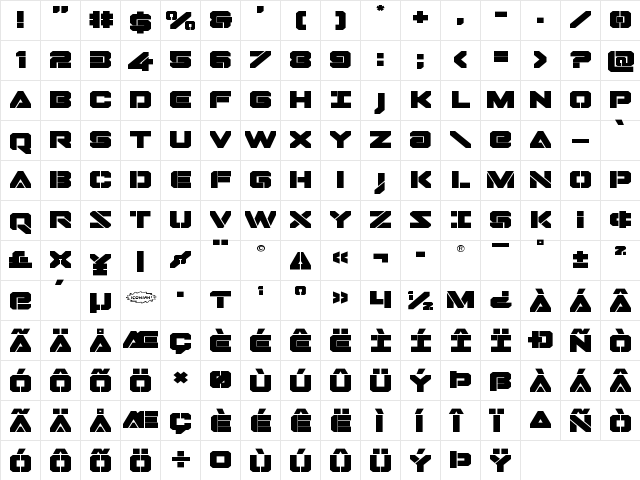
Domino Jack Expanded Expanded
Design Context for Domino Jack Expanded Typeface
Domino Jack Expanded is a composed and adaptable typeface that performs quietly and consistently across a wide range of design contexts.